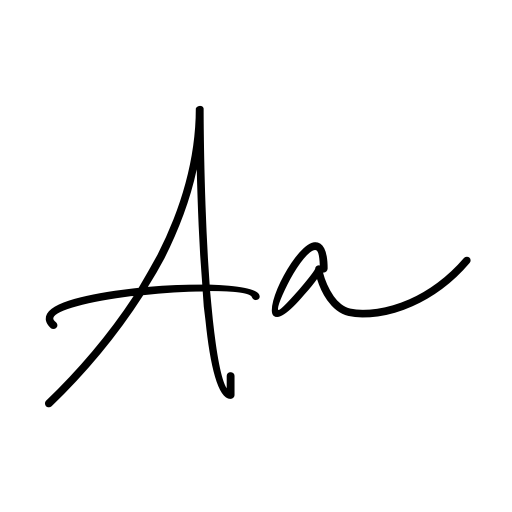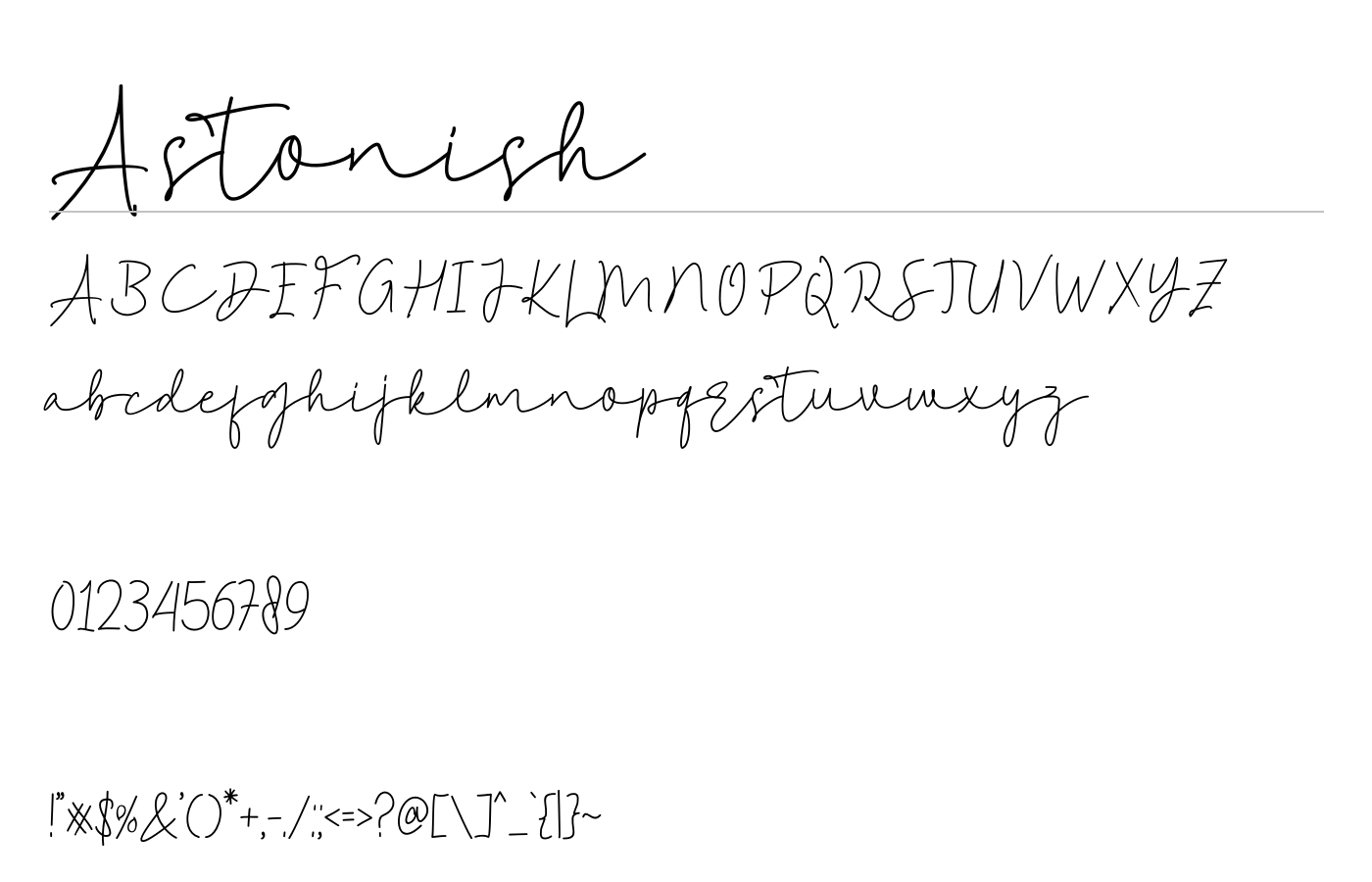
Astonish is a delicate, handwritten script font with a light, airy feel and elegant, flowing letterforms. Its thin strokes and casual yet refined style make it perfect for creative projects, invitations, and branding that seeks a personal and artistic touch. This font works beautifully for designs where a sophisticated, yet approachable and unique personality is desired.
Astonish Font
About Astonish Font